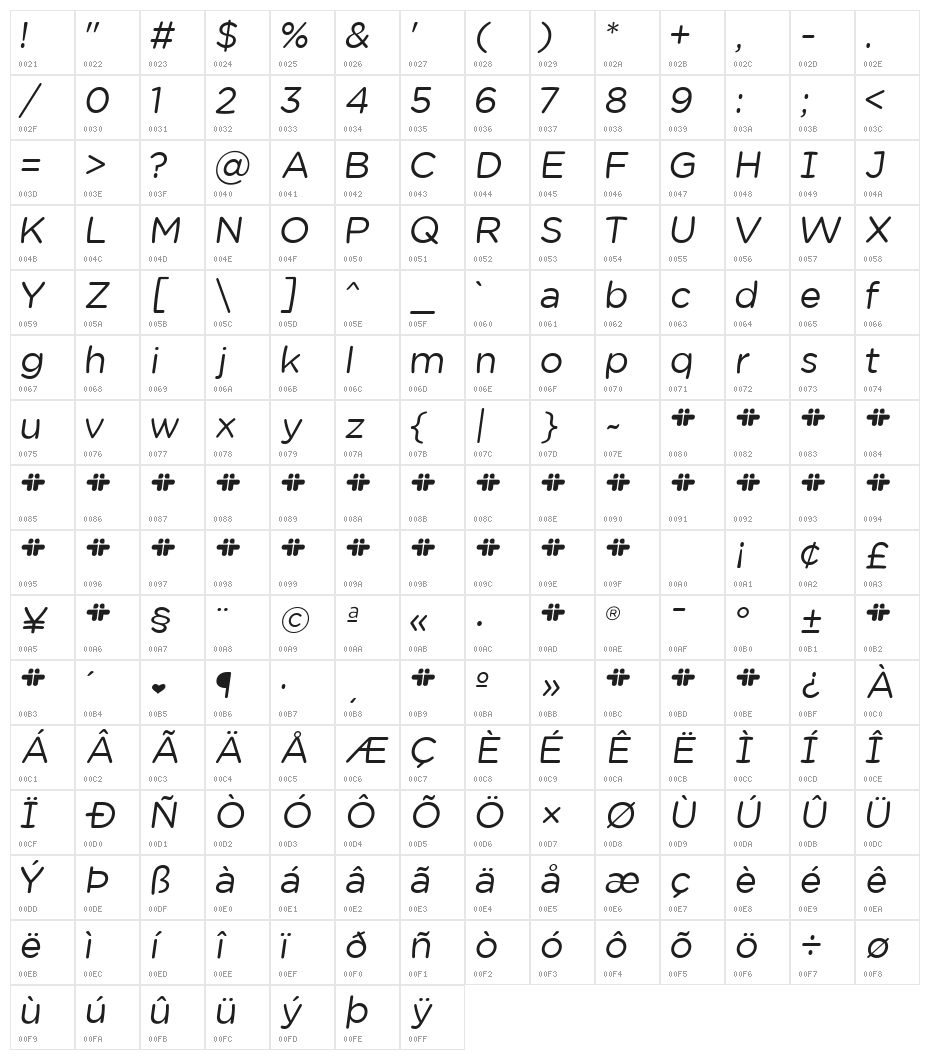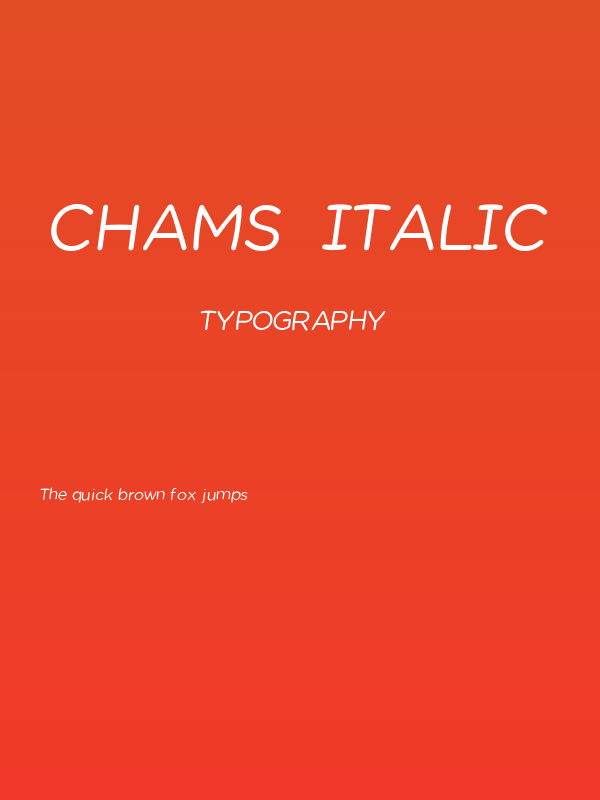
Chams Italic Font
Chams Italic Description
This font features a smooth, flowing design with a slight slant, giving it an elegant and modern appearance. The characters are rounded and have a consistent stroke width, contributing to a clean and polished look. The uppercase and lowercase letters maintain a harmonious balance, while the numerals and special characters are designed to complement the overall style. The font's simplicity and readability make it versatile for various applications.
| Proposed Projects | Ideal for branding, advertising, and digital content where a modern and approachable feel is desired. |